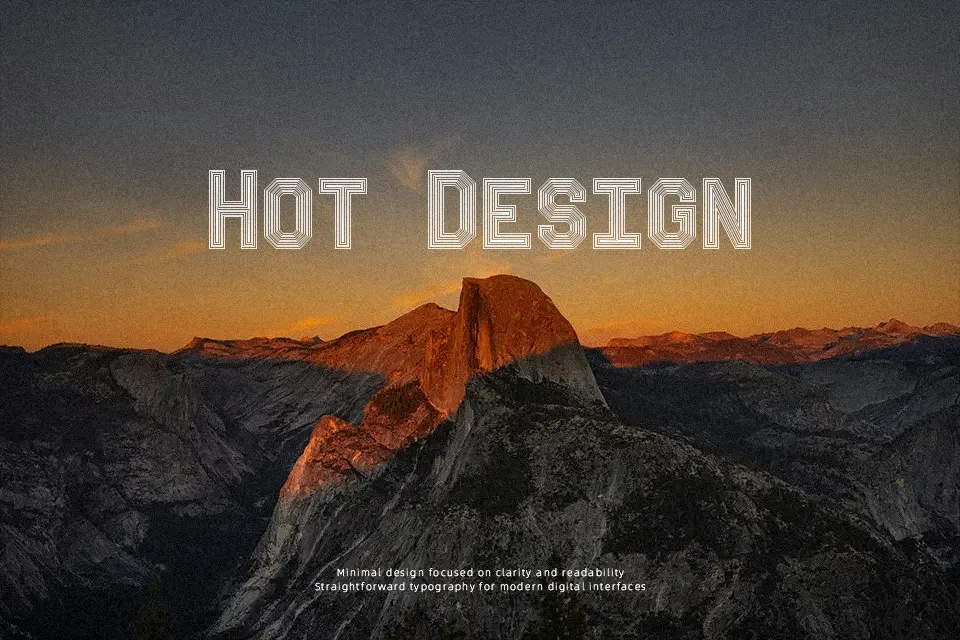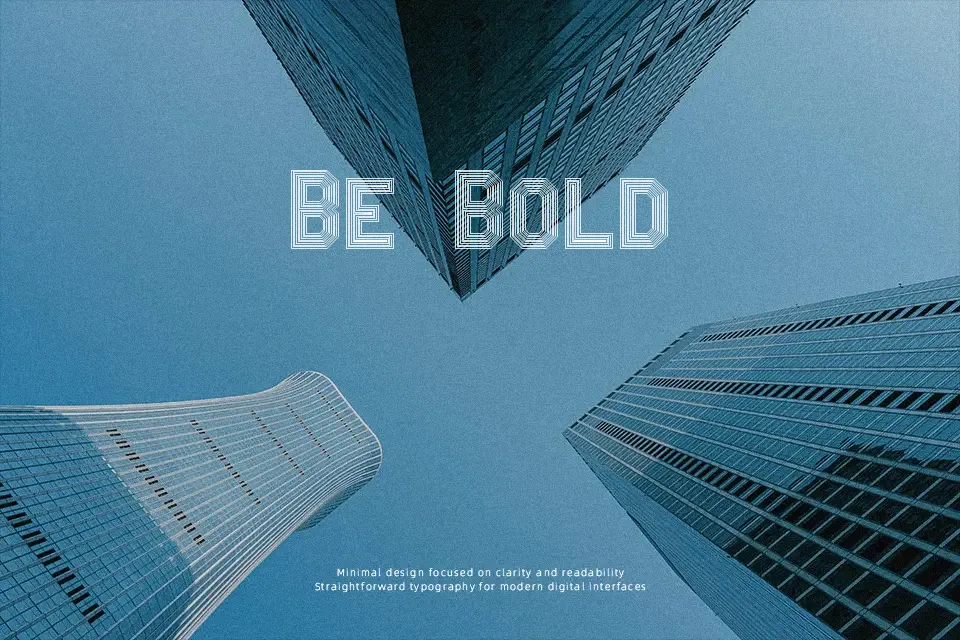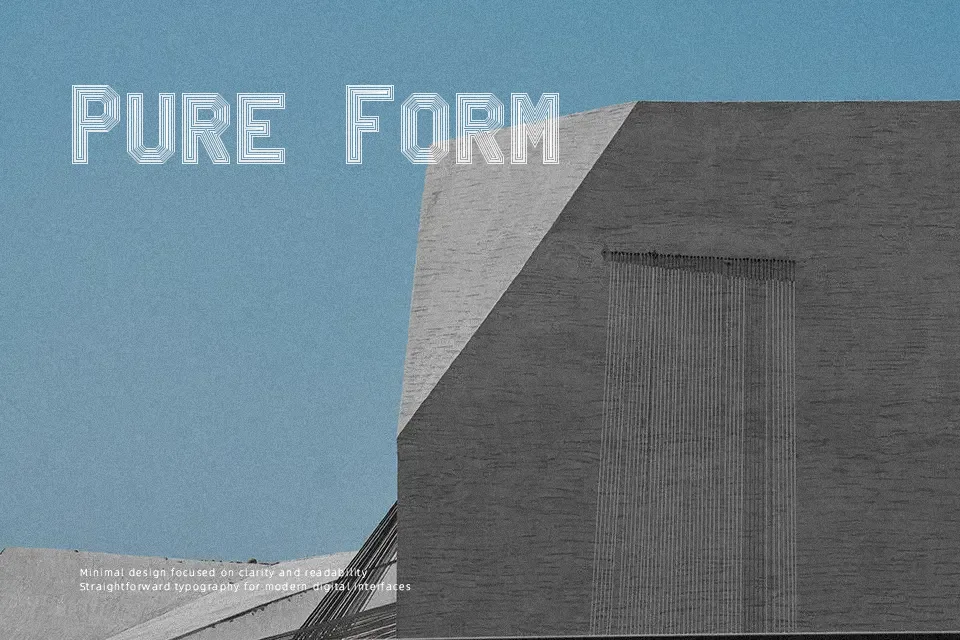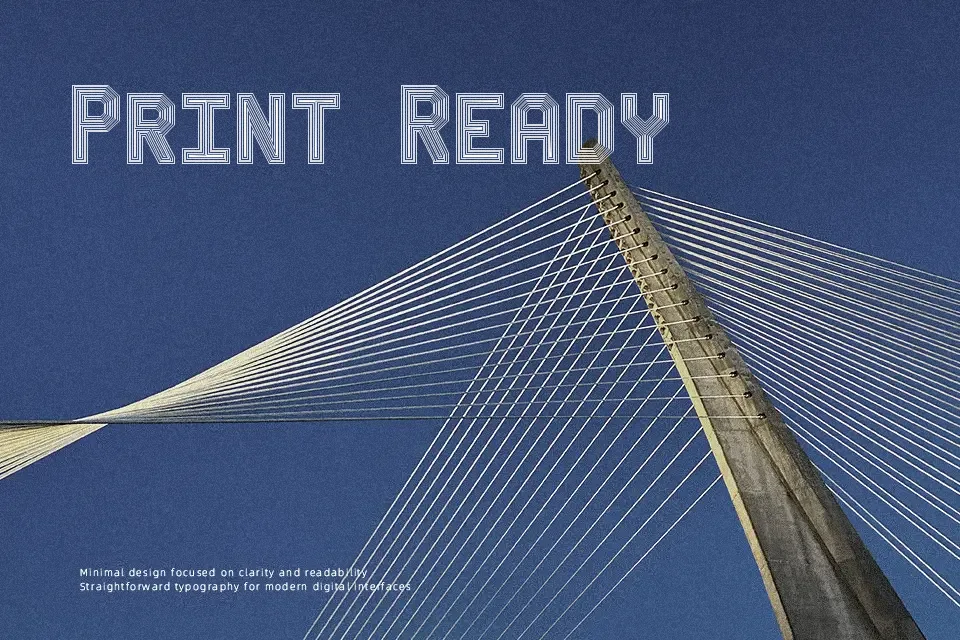
Bevel’sAdvocateMono Font
The letterforms here look milled rather than drawn — each character carries angled, striated facets that catch light like machined metal, giving the typeface a distinctly industrial, three-dimensional feel. Uppercase-dominant and monospace in structure, the fixed-width spacing reinforces a cold, technical rhythm that works well for short display headlines, circuit board aesthetics, retro sci-fi titles, or experimental product labels. The bevel effect reads strongest at larger sizes; shrink it below roughly 24pt and the detail collapses into visual noise, making it unsuitable for body copy or dense typesetting. If you need something precise and geometric with texture — not just clean lines — this delivers that with a flair most pure sans-serif monospace fonts lack. Use it knowing it carries a strong visual personality that resists neutrality.
– Retro sci-fi or cyberpunk poster headlines
– Industrial-style logo lockups
– Circuit board or tech product label design
– Gaming UI title screens or event name treatments
– Body text or any paragraph-length content
– Corporate or formal document design
– Small-size usage below 20–24pt
– Clean, minimal brand identities needing restraint
Perfect for branding, gaming, and headline, with a bold and display style.